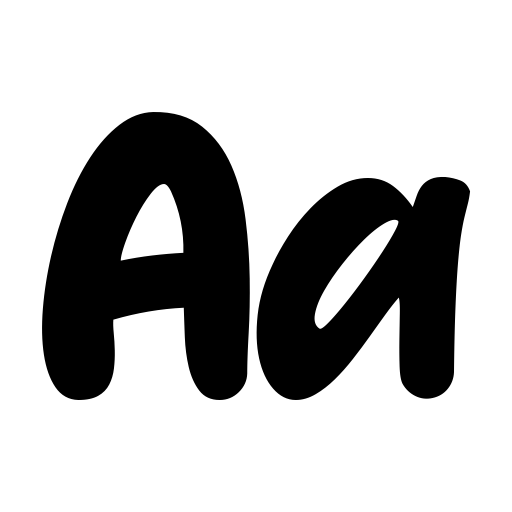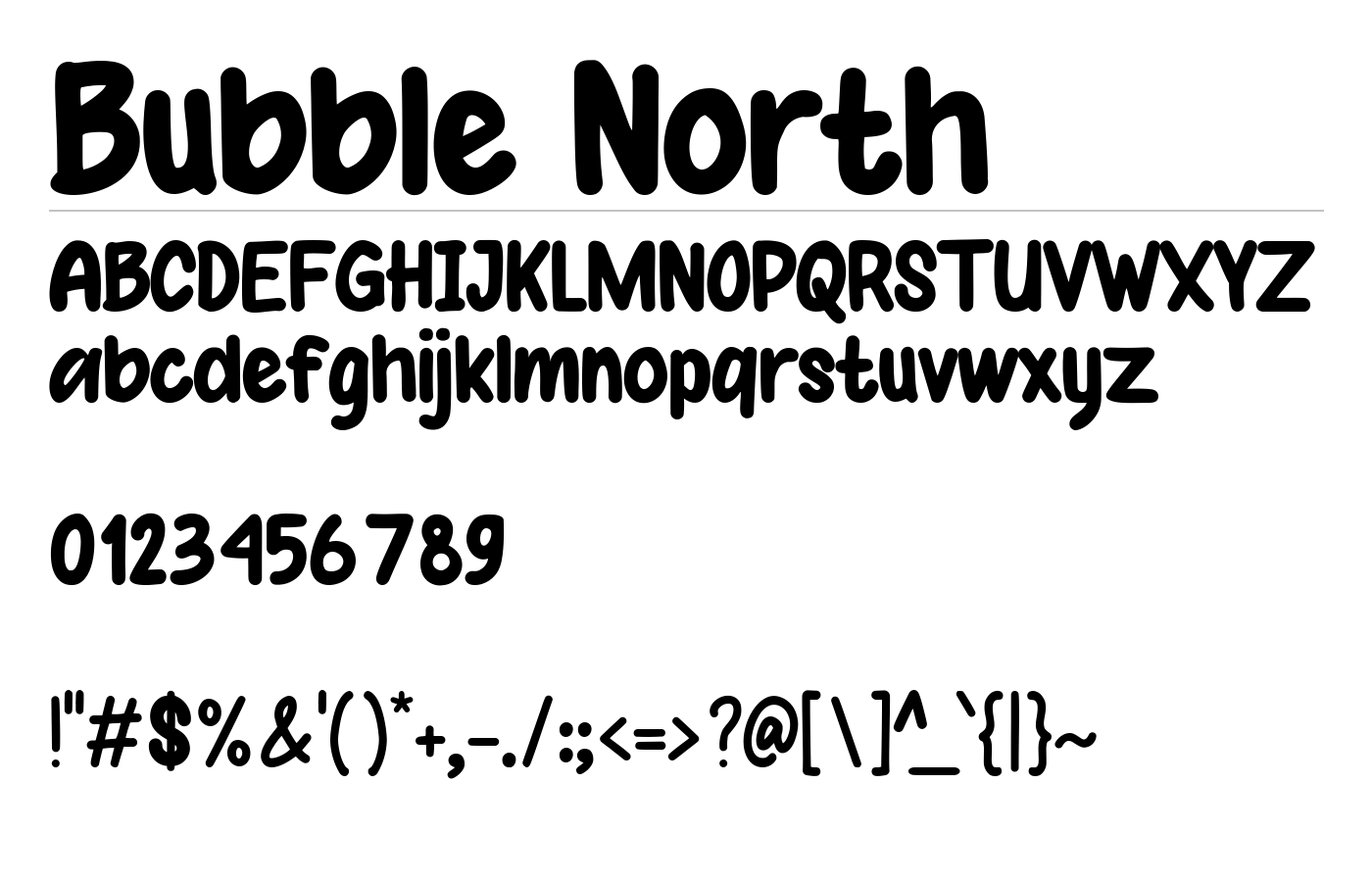
Bubble North is a playful and rounded sans serif font with a bold weight and a friendly, informal style. Its soft, chubby letterforms and slightly irregular shapes give it a hand-drawn, approachable feel that works well for children's products, casual branding, and fun editorial projects. This font is ideal for creating eye-catching headlines and logos that need a warm, energetic vibe.
Bubble North Font